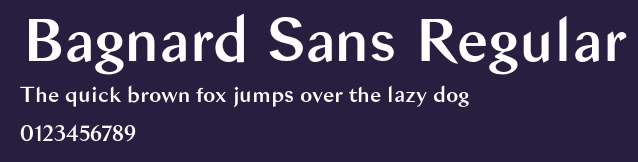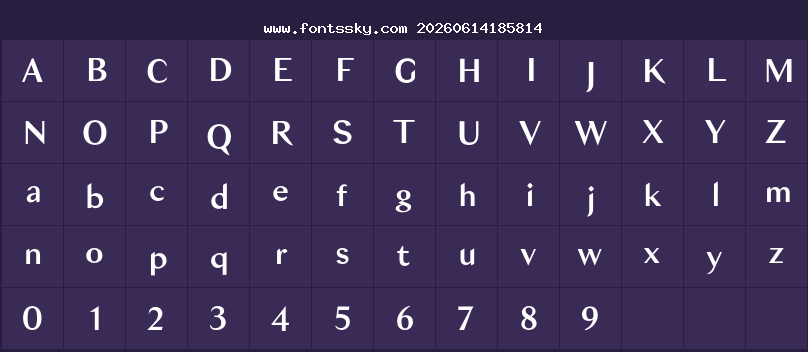
Bagnard Sans Regular Preview
• Font Name: Bagnard Sans Regular
• Designer: Sebastien Sanfilippo, Doug Thomas, Chris Fodge, May Kim
About Bagnard Sans Regular.otf
Bagnard Sans Regular.otf is a modern, elegant sans-serif font designed for ultimate readability and visual harmony. Perfect for branding, headlines, web design, and print materials.